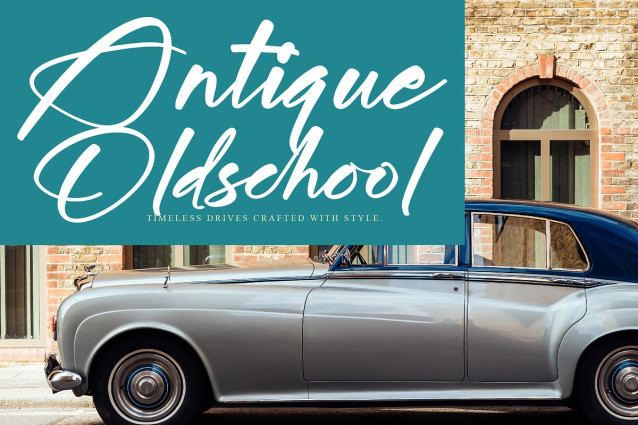
Midnight Sneaker Font
Midnight Sneaker Font – A Modern Signature Script Font, from Operatype, perfect for any project like: logos, branding projects, homewares designs, product packaging, mugs, quotes, posters, shopping bags, t-shirts, covers books, business cards, invitation cards, greeting cards, labels, photography, watermarks, special events and all your other luxury projects that require a premium taste.